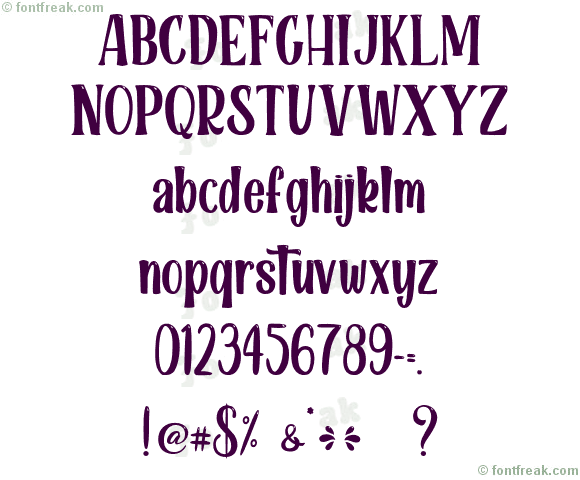
RoseCakePersonalUse
About RoseCakePersonalUse
The RoseCakePersonalUse font by Suthi Srisopha is a charming display typeface that exudes a playful yet elegant essence. This script font features a unique blend of whimsy and sophistication, making it an excellent choice for various creative projects. The characters showcase a moderate stroke weight with subtle contrast, giving each letter a welcoming and approachable feel. The spacing is thoughtfully crafted, allowing for easy readability while maintaining a decorative flair that draws the eye.
One of the standout features of the RoseCakePersonalUse font is its versatility. It is particularly well-suited for wedding invitations, where its romantic style can convey a sense of celebration and love. Additionally, it works beautifully on greeting cards, providing a personal touch that can elevate any message. Restaurant menus can benefit from this font's unique character, lending an inviting atmosphere that appeals to diners. Moreover, small business owners will find it ideal for branding materials, as it captures attention and leaves a memorable impression. Content creators can also utilize this font in social media graphics, ensuring their posts stand out in a crowded digital landscape.
What truly sets the RoseCakePersonalUse font apart is its ability to evoke emotion while remaining functional. Its playful design, combined with its practical usability, makes it a must-have for anyone seeking to add a touch of personality to their work. With this font, your designs will not only capture attention but also resonate with your audience.